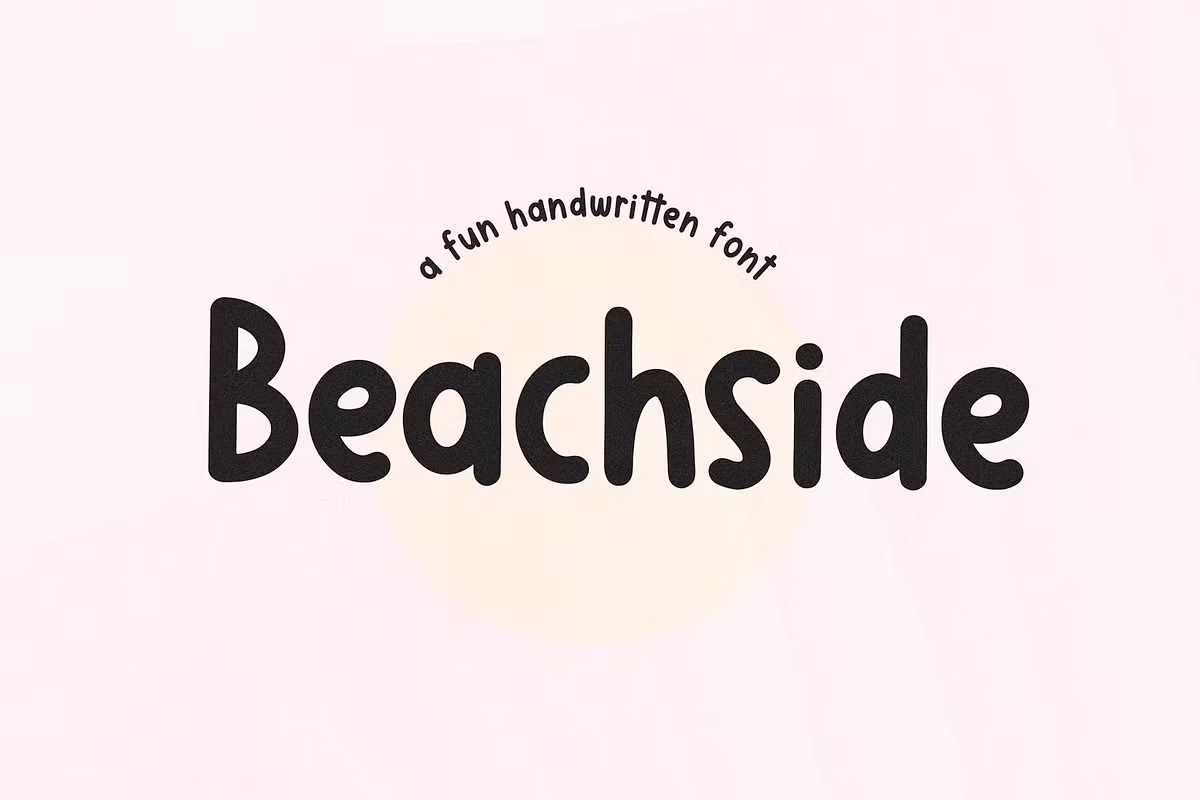
Beachside | Cute Handwritten Font Free Download
Beachside Cute Handwritten Font Free Download
Beachside Cute Handwritten Font Free Download is a playful and lively handwritten script that brings a fun, casual vibe to your designs. With its round, friendly letterforms and smooth flow, this font is perfect for creating beach-themed branding, social media graphics, invitations, posters, and more.
Whether you're designing for a summer event, a coastal brand, or a personal project, Beachside Cute Handwritten Font Free Download adds a carefree, approachable touch to your typography. Its charming style makes it ideal for casual, fun designs while maintaining legibility and personality.